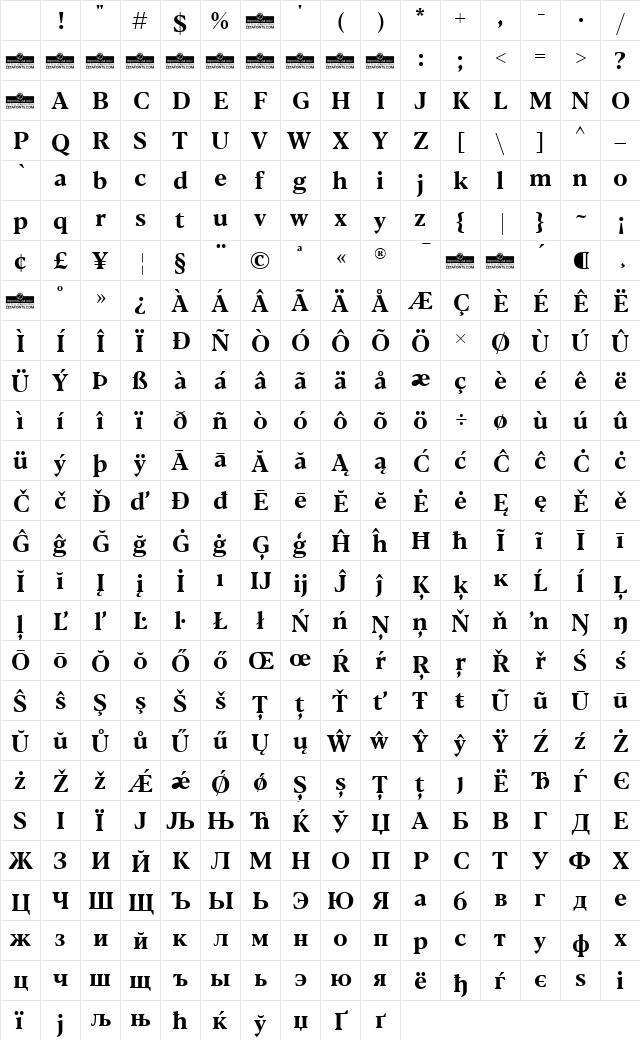
Blacker Text is a composed and adaptable typeface that performs quietly and consistently across a wide range of design contexts. Its bold stroke weight gives it real presence on the page.